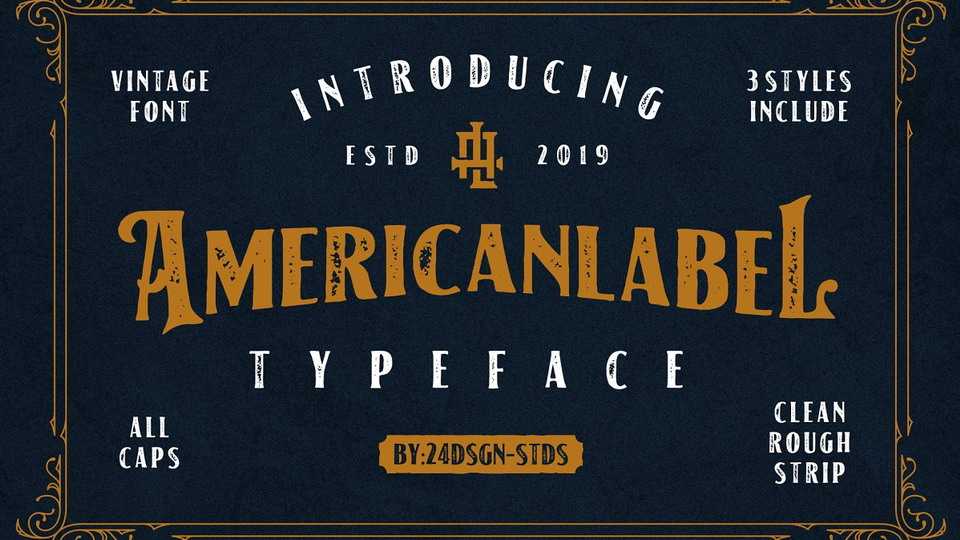
Download American Label font family, a vintage typeface. Its masculine style makes it perfect for logos, typography, and product labels that require a classic and masculine touch.
Designer: Holis Majid